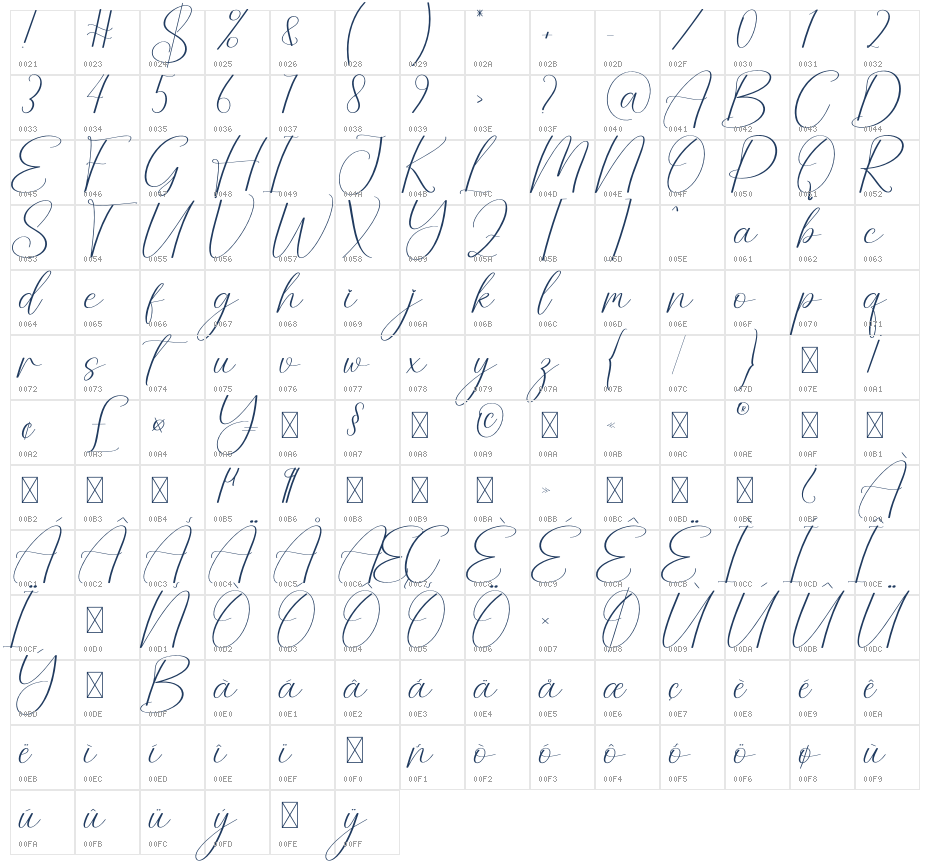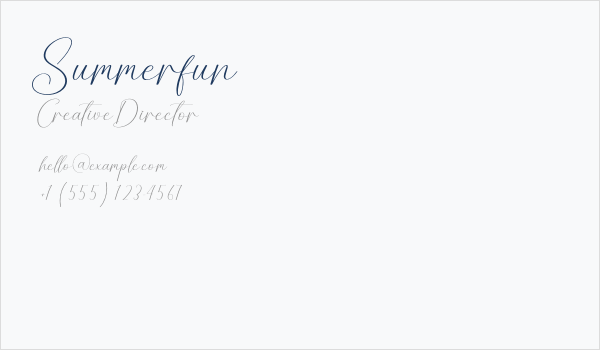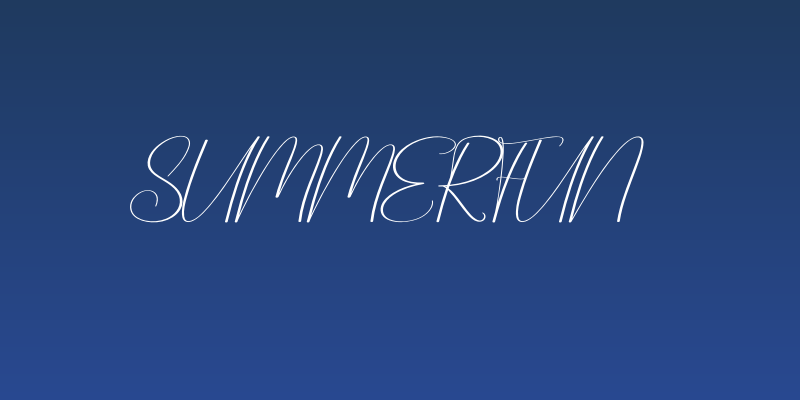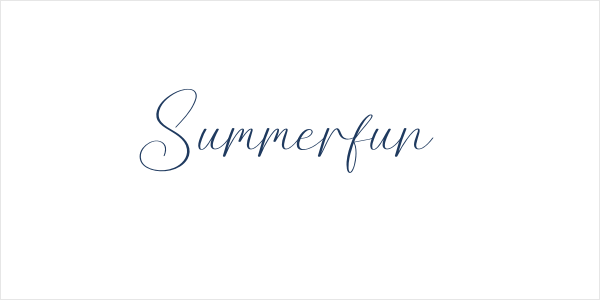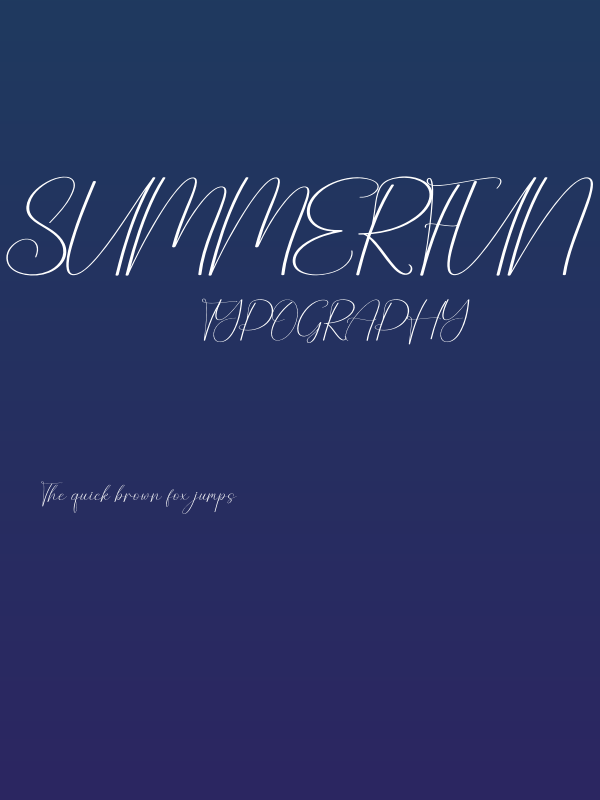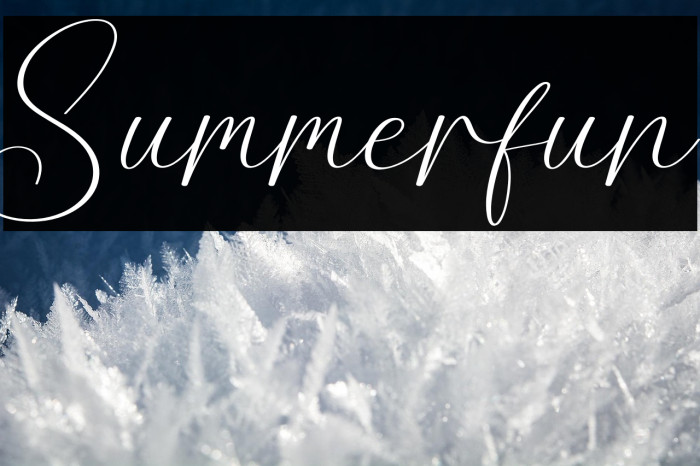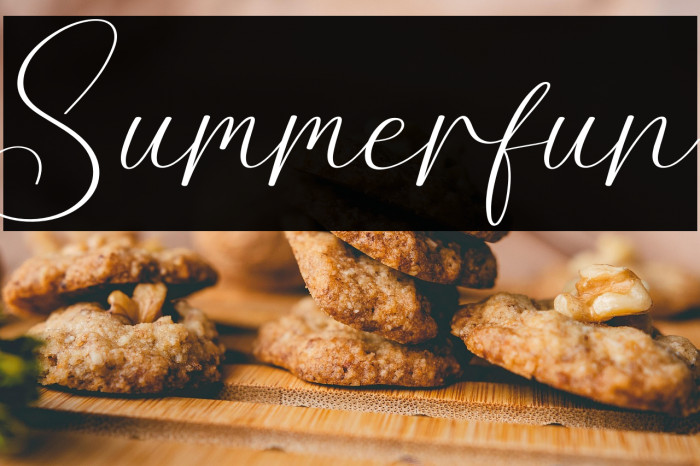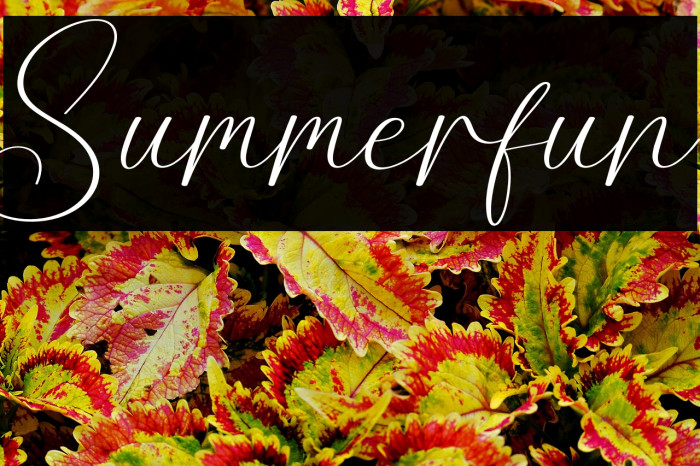
Summerfun Font
Elegant, flowing cursive script with fine, delicate lines and high contrast, resembling handwritten calligraphy.
| Overall Style | Elegant, Calligraphic |
| Use Case | Invitations, branding, decorative text |